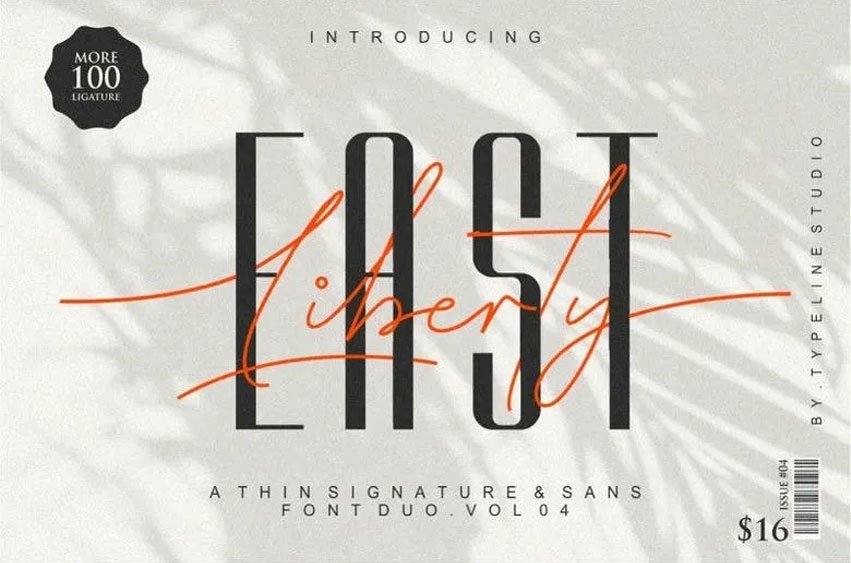
Introducing our newest font duo with called East liberty thin signature and sans serif, this is a duo between a modern script signature and sans serif condensed which is perfect for creating logos, brands, tshirt, photographic watermarks, beauty products, magazine covers, magazine content, quotes and more. Start a new day with a clean handlettering font.